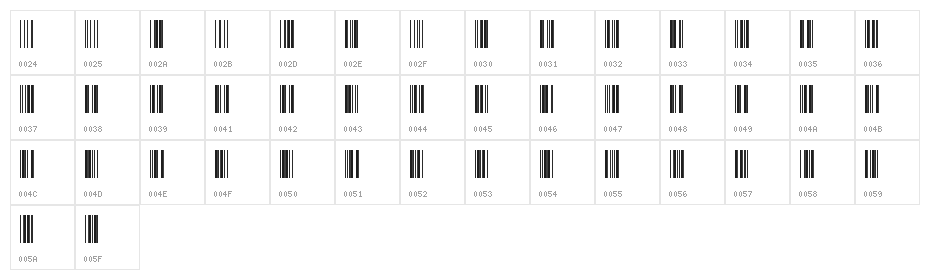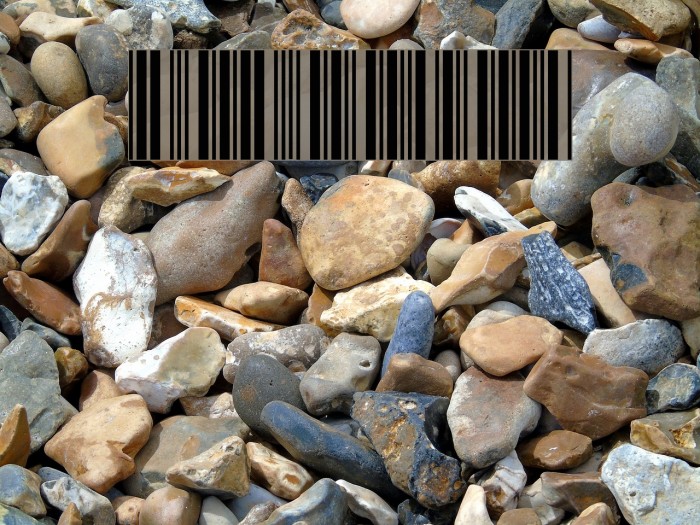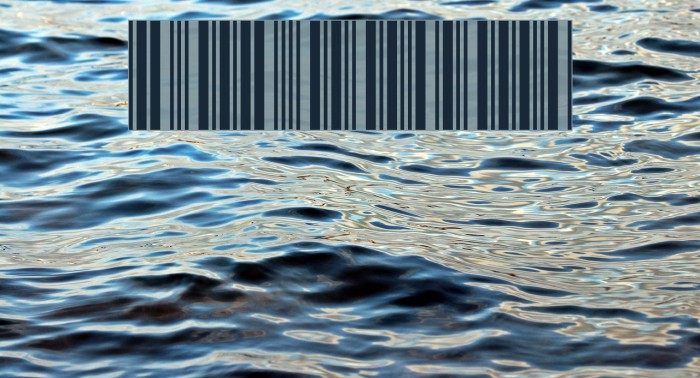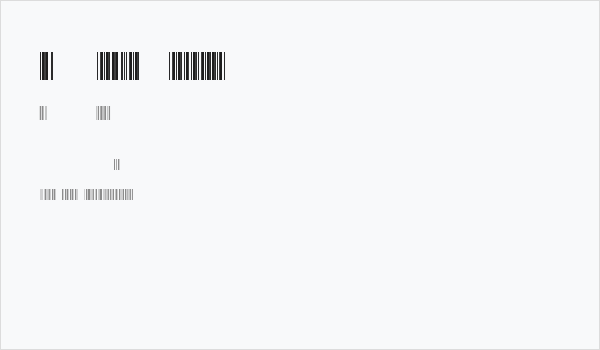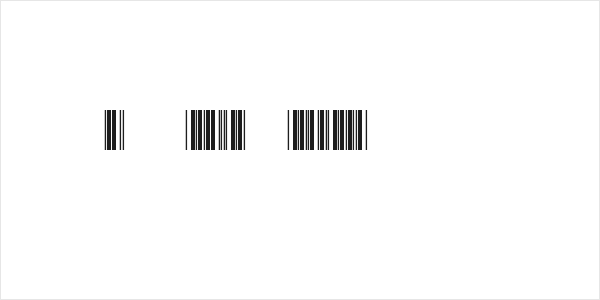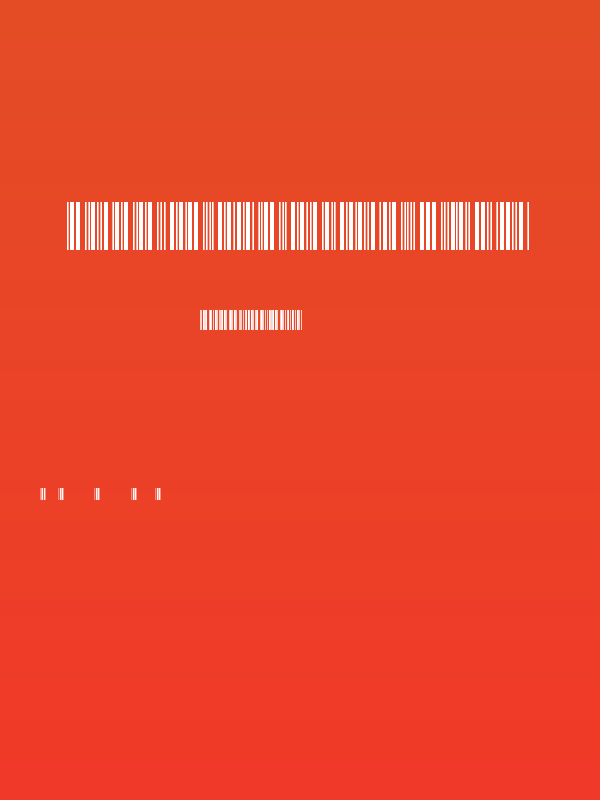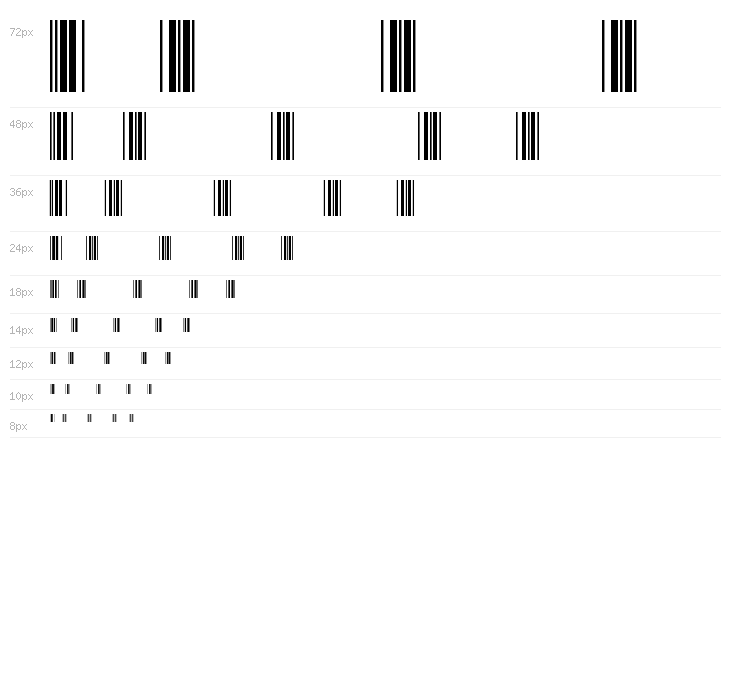
Free 3 of 9 Regular Font
Free 3 of 9 Regular Description
This font is a barcode style, specifically designed for encoding alphanumeric characters in a machine-readable format. It features a series of parallel lines of varying widths and spacing, which represent different characters. This type of font is commonly used in retail and inventory management systems to facilitate the scanning and tracking of products. The design is purely functional, focusing on clarity and readability by barcode scanners rather than aesthetic appeal. Each character is represented by a unique pattern of bars, ensuring accurate data capture.
| Overall Style | Functional |
| Use Case | Barcodes, Product labels, Inventory systems |
| Proposed Projects | Ideal for retail product labeling, inventory management systems, and any application requiring barcode scanning. |